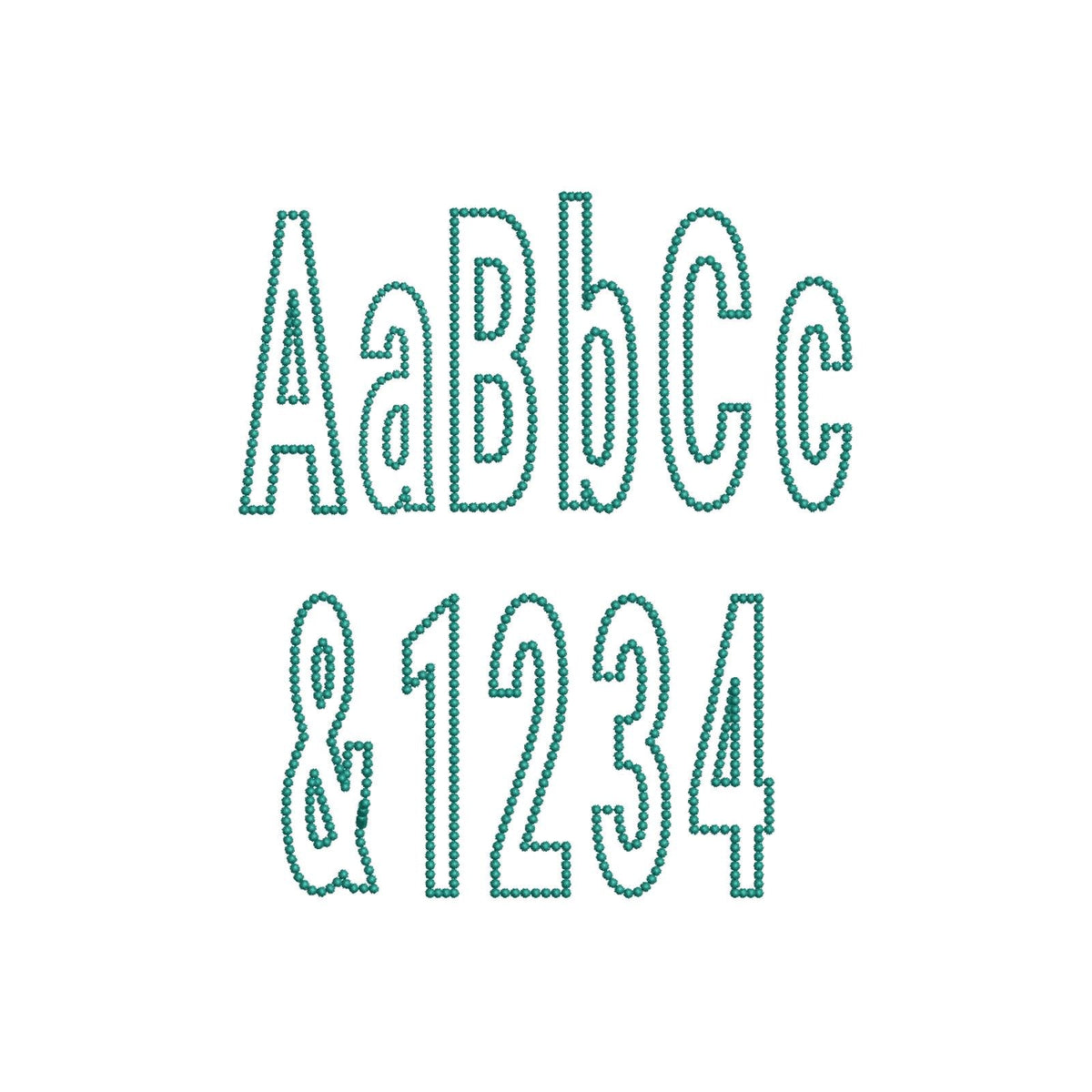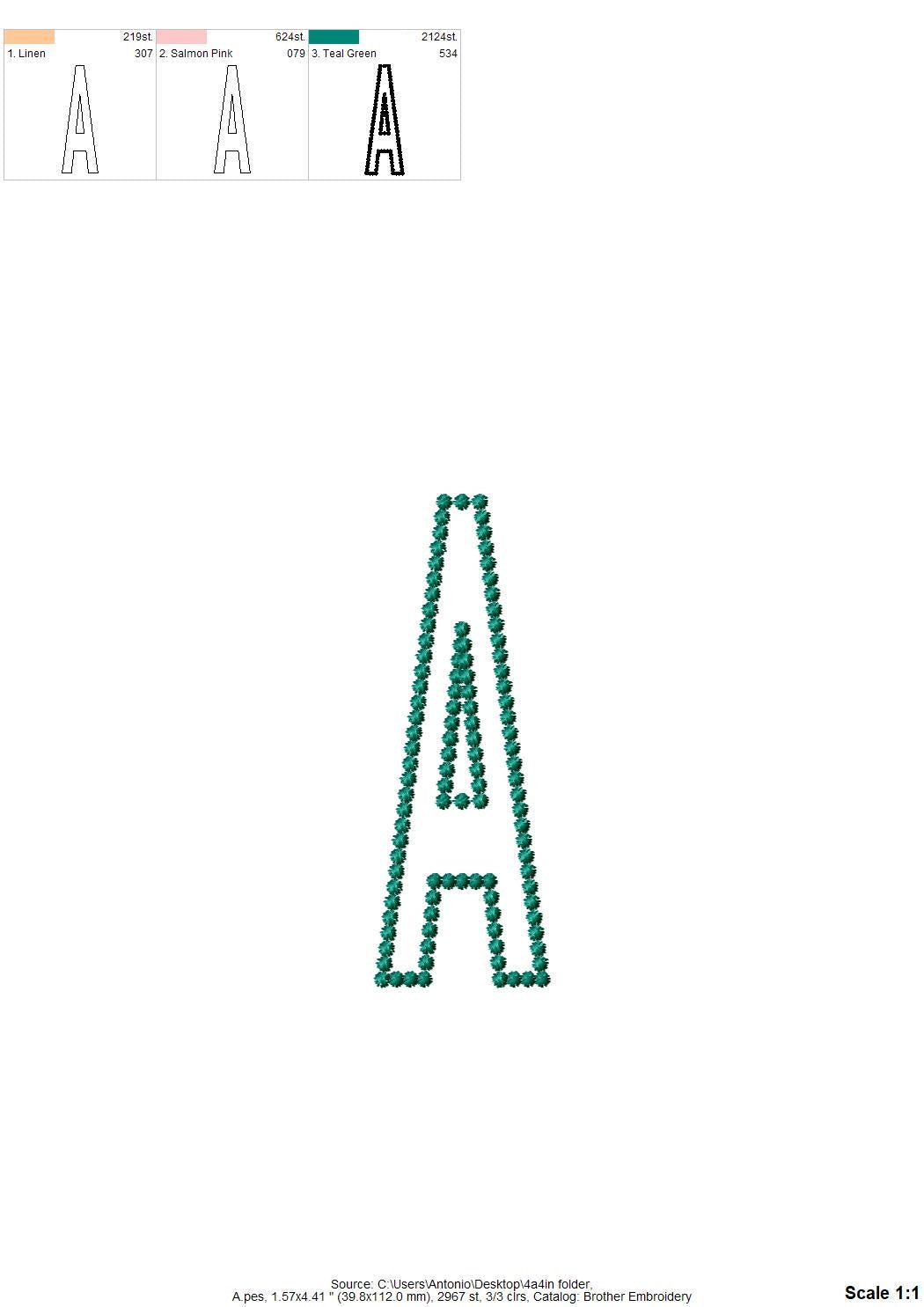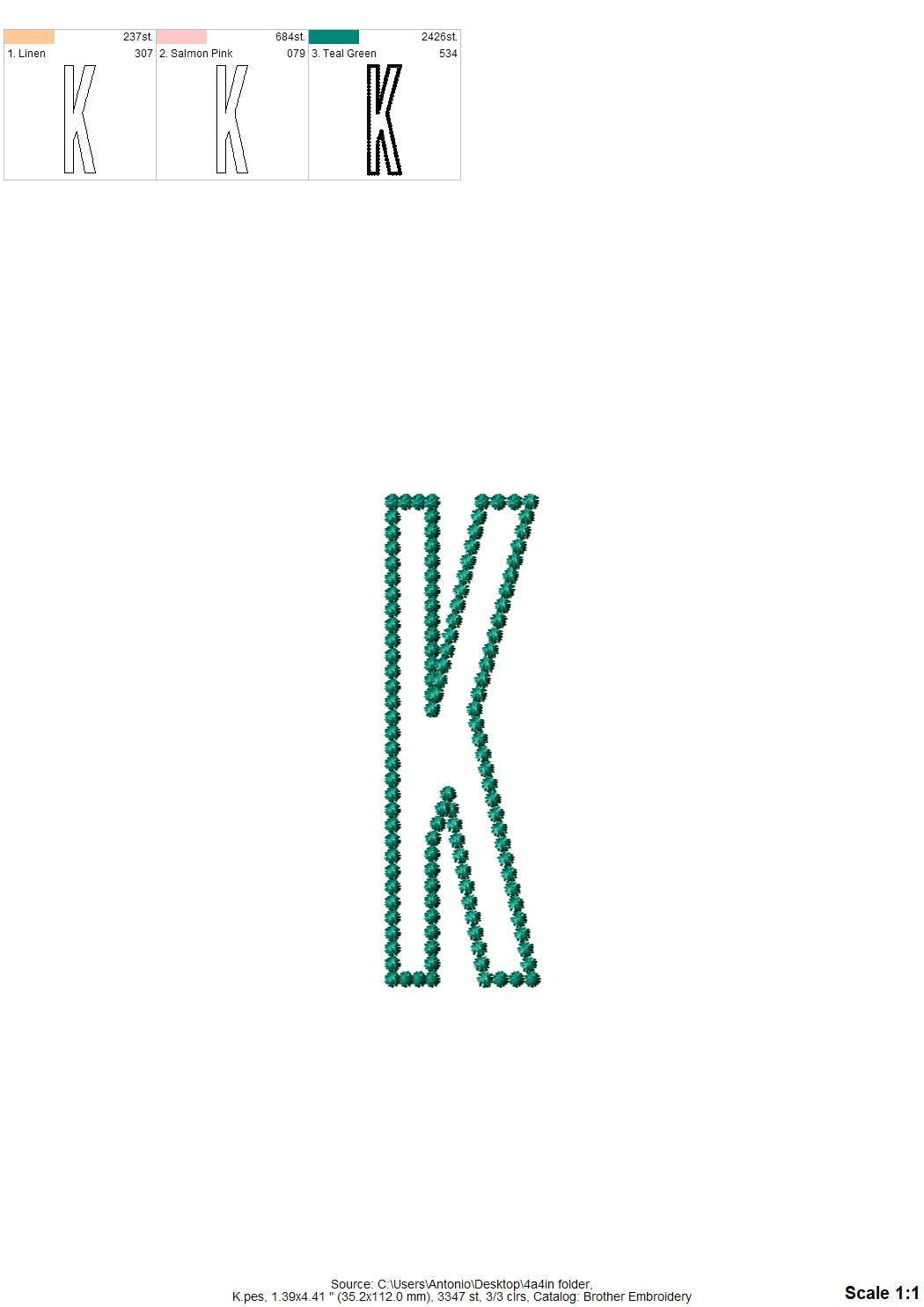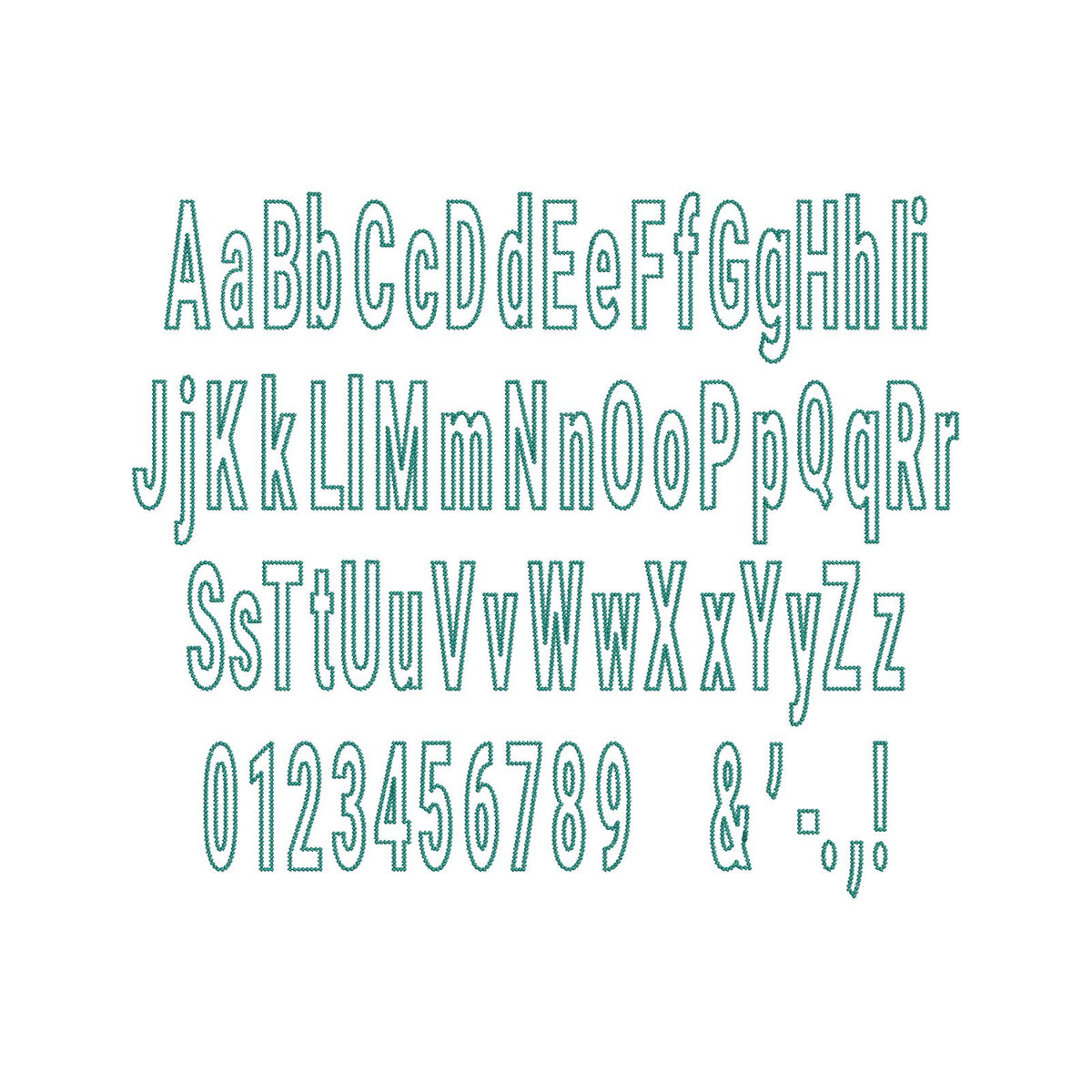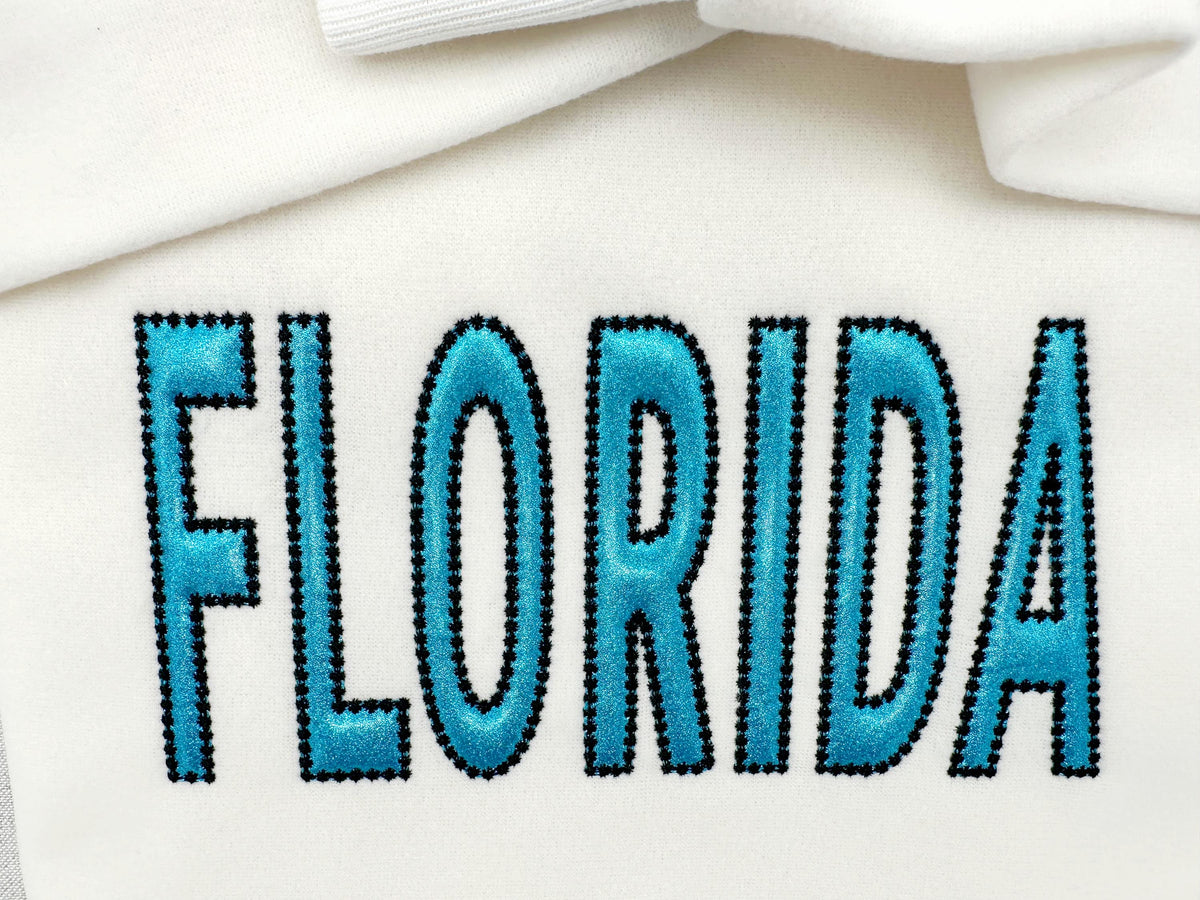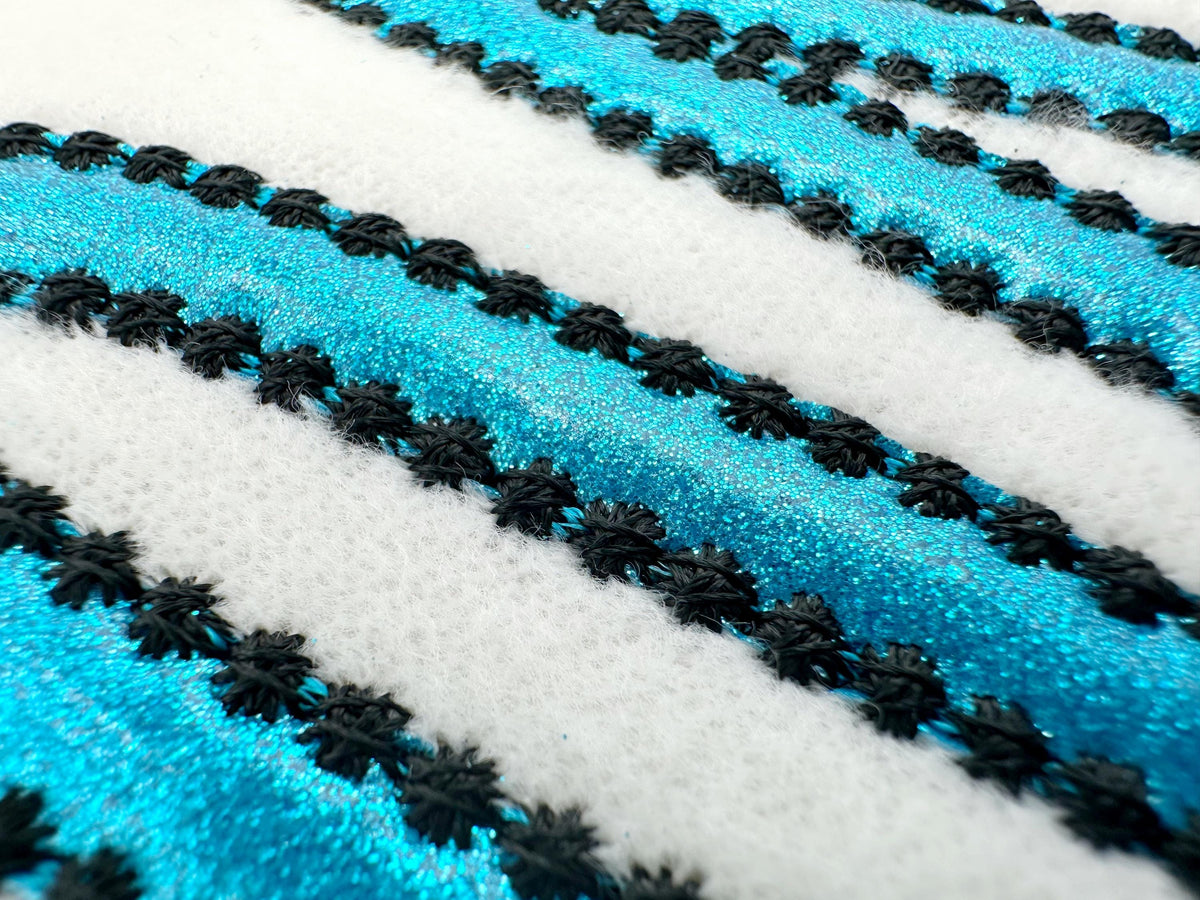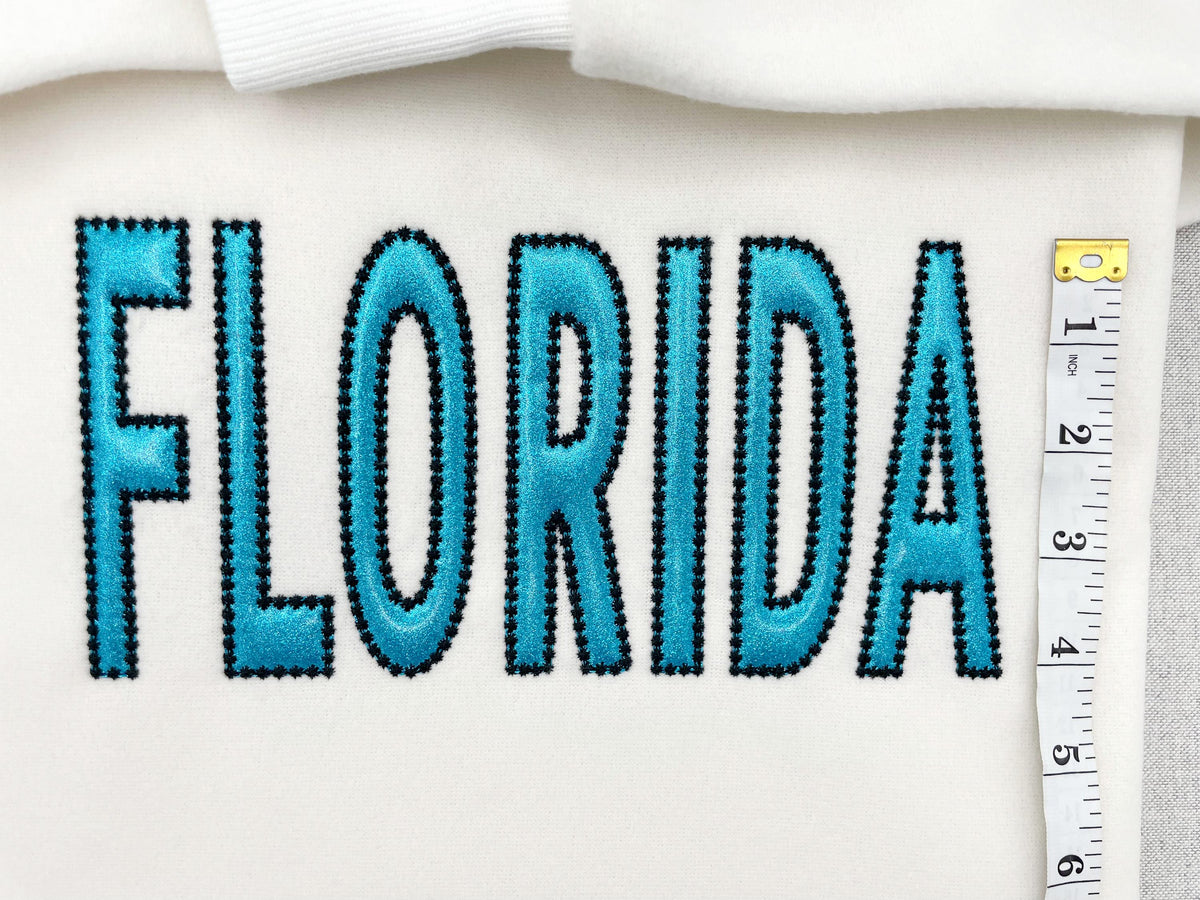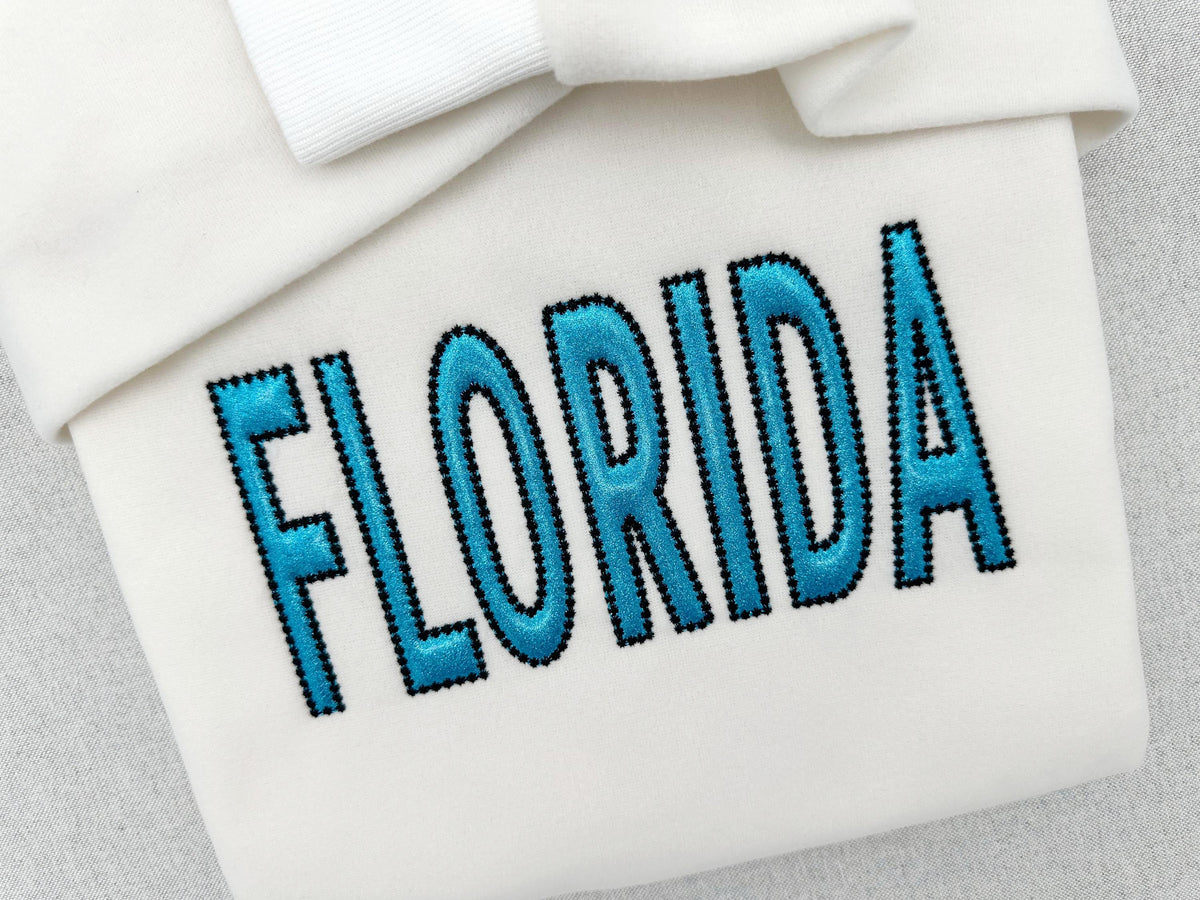
Collegiate Athletic Narrow Font
Or click to open the linkA narrow collegiate athletic applique font in big sizes with a pearl stitch outline. Made for team shirts, jerseys and jackets.
The letters come in six sizes: 3, 3.7, 4.4, 5.3, 6.3 and 7.6 inches. Narrow athletic applique letters with a pearl stitch outline; use glitter heat transfer vinyl or any fabric. Includes uppercase and lowercase letters, numbers 0 to 9 and punctuation.
- Narrow collegiate applique font, pearl stitch outline
- 6 sizes, 3 to 7.6 in